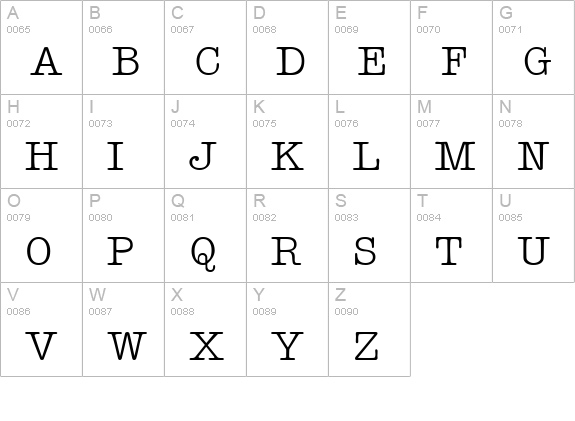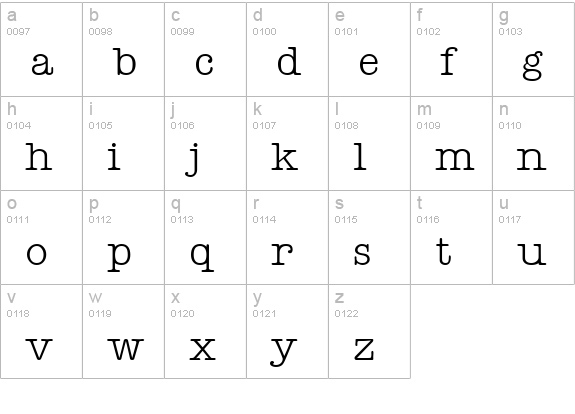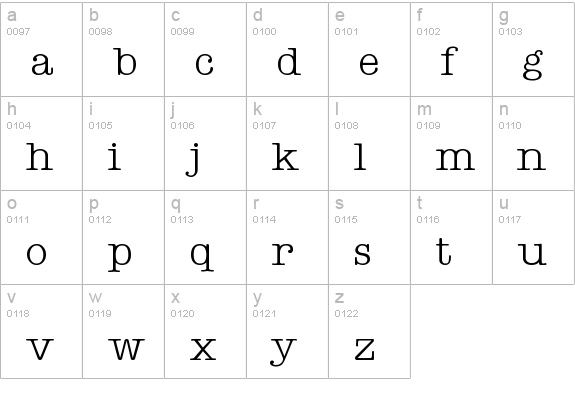
Teletype Regular Font Details
Teletype Regular is the standard, neutral variant in the Teletype typeface family \xE2\x80\x94 well suited to general body text, paragraphs, and standard typographic work.
Teletype Regular font is a versatile and stylish typeface that exudes a timeless charm. With its clean lines and classic appeal, this font is perfect for a wide range of design projects, from elegant logos to eye-catching headlines. What sets Teletype Regular font apart is not just its impeccable design, but also its accessibility. This font is freely available to download at FontsMarket.com, making it a valuable resource for designers, students, and anyone in need of a high-quality typeface without breaking the bank. The clean and legible characters of Teletype Regular font make it ideal for both print and digital applications. Whether you're designing a website, creating a brochure, or crafting a poster, this font will effortlessly enhance your visuals and grab the attention of your audience. The versatility of Teletype Regular font is further enhanced by its extensive character set, which includes uppercase and lowercase letters, numbers, punctuation marks, and special symbols. This ensures that you have all the tools you need to bring your creative vision to life. With its timeless appeal and freely available download at FontsMarket.com, Teletype Regular font is a must-have for any designer or typographer looking to elevate their work. Don't miss out on this opportunity to add a touch of elegance and professionalism to your projects. Download Teletype Regular font today and unleash your creativity.